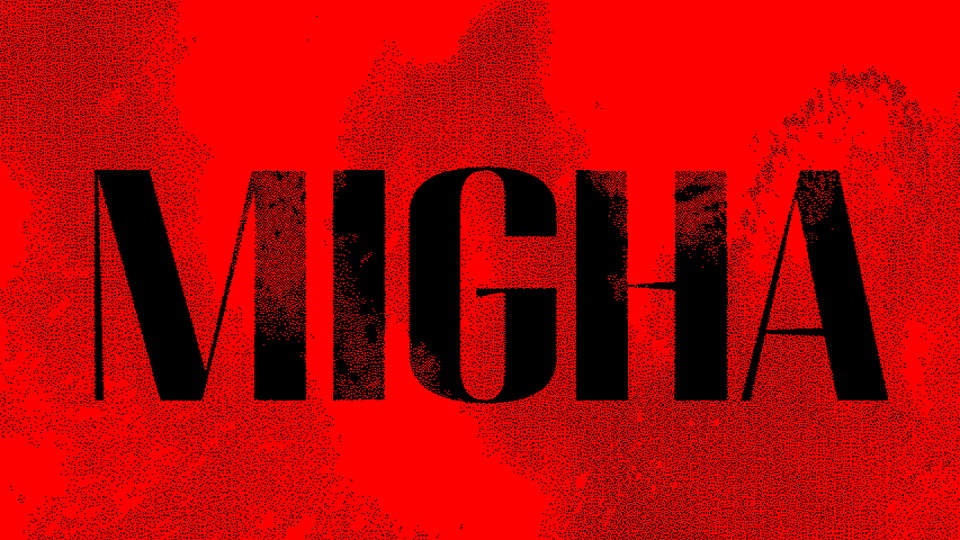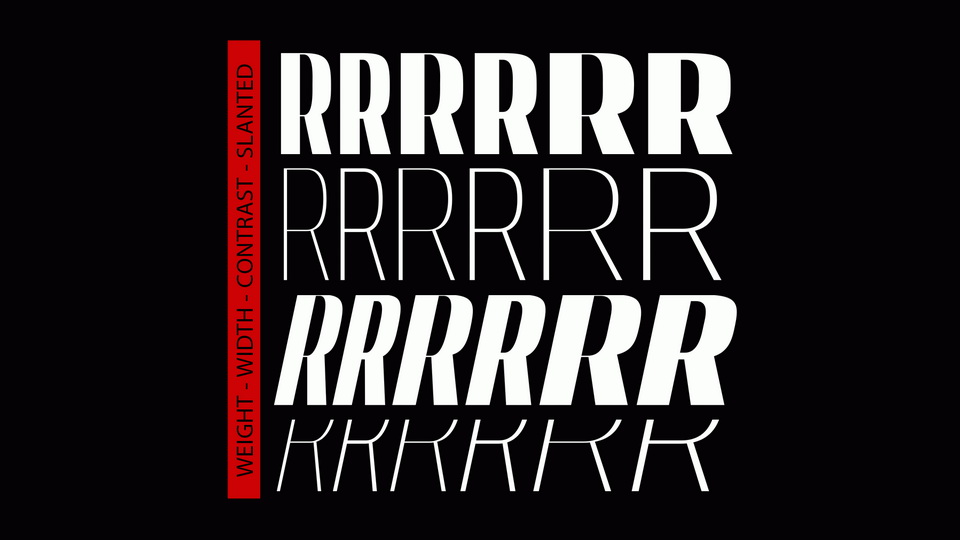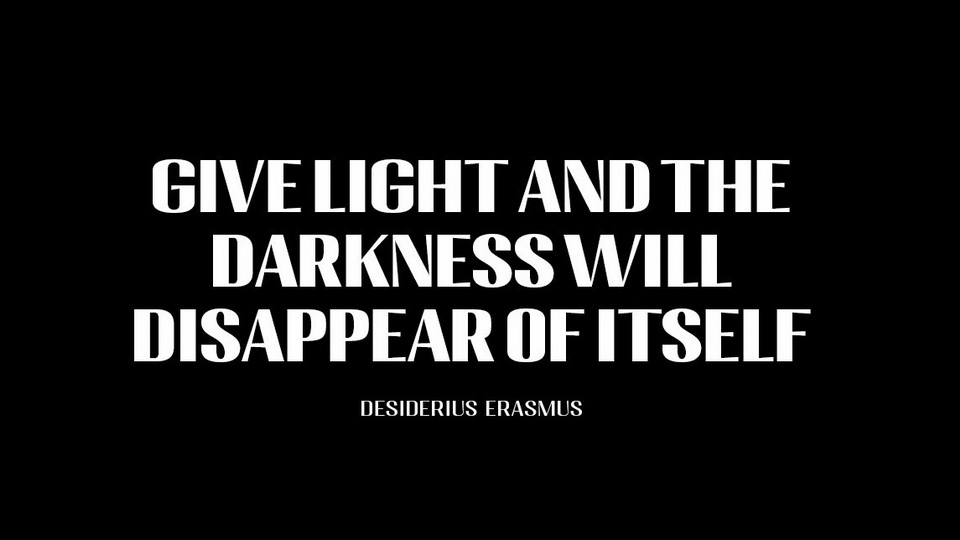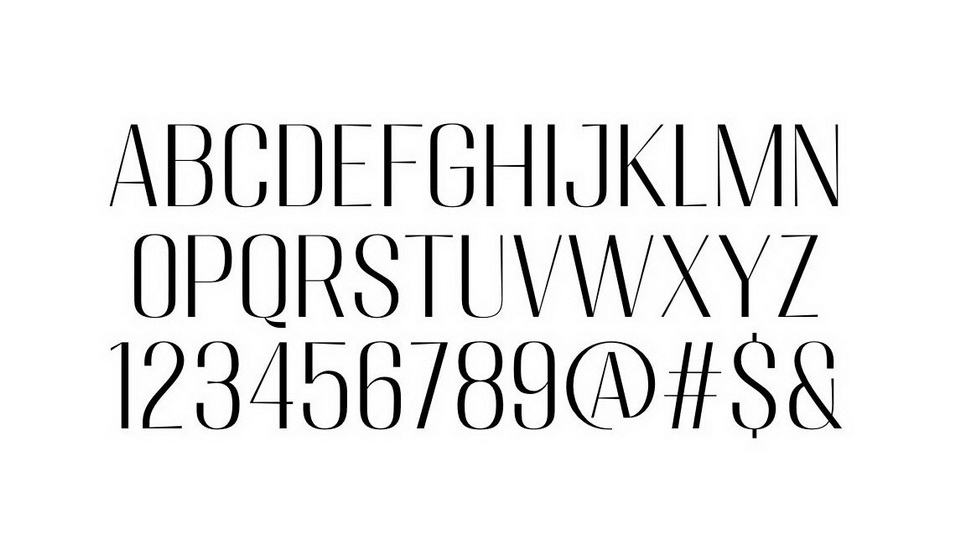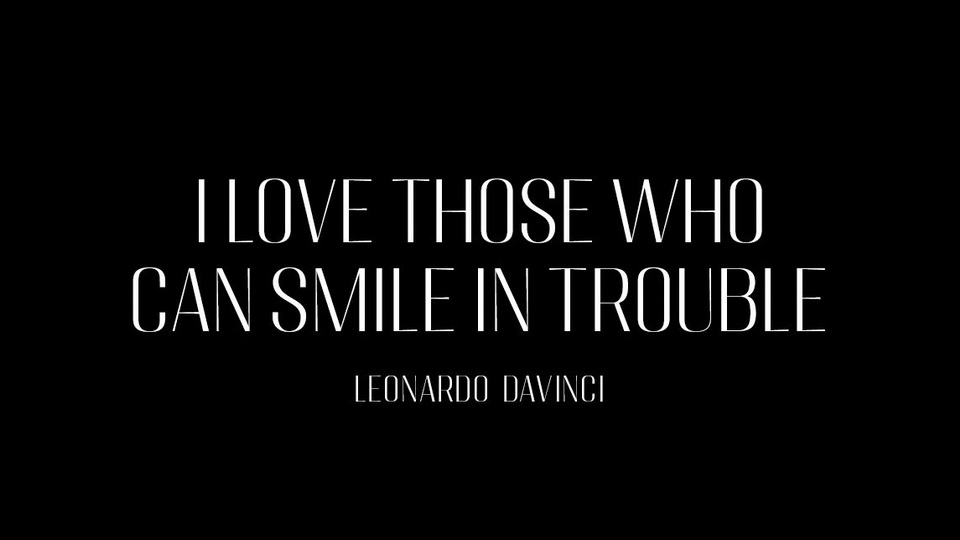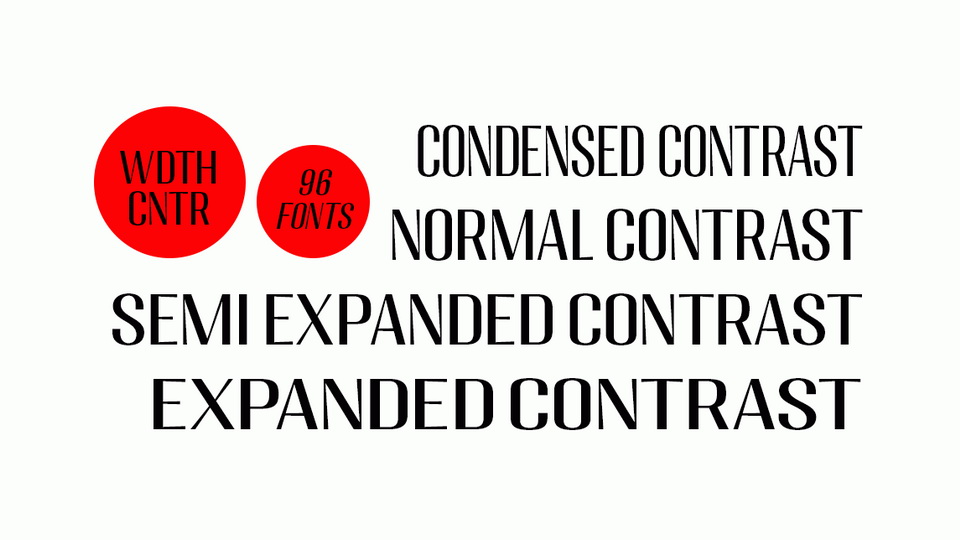
Migha is a display font family designed with a modern and vintage feel. Perfect for any branding, magazine, posters, logos, titles, blogs, and more.
Migha comes with a full set of uppercase, numbers, punctuation and multilingual support. It contains 6 weights, 4 width, contrast and slant for a total of 96 font files, including variable font.